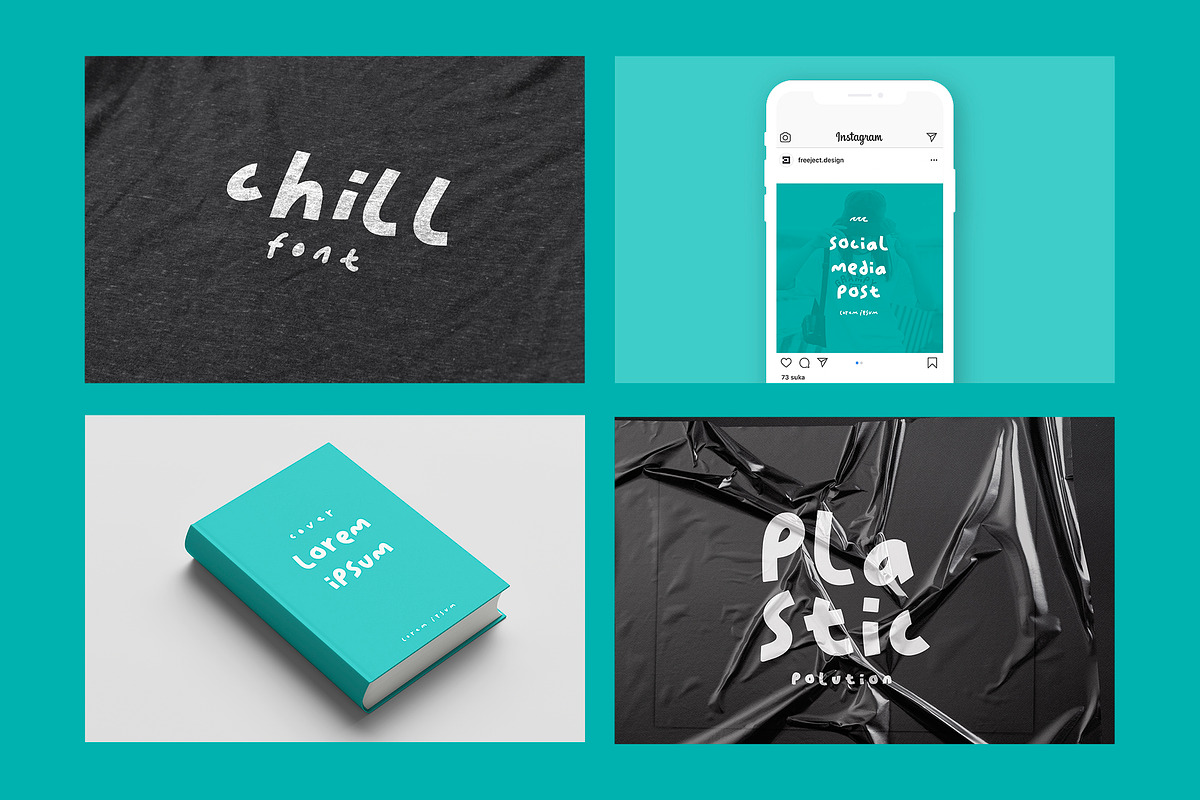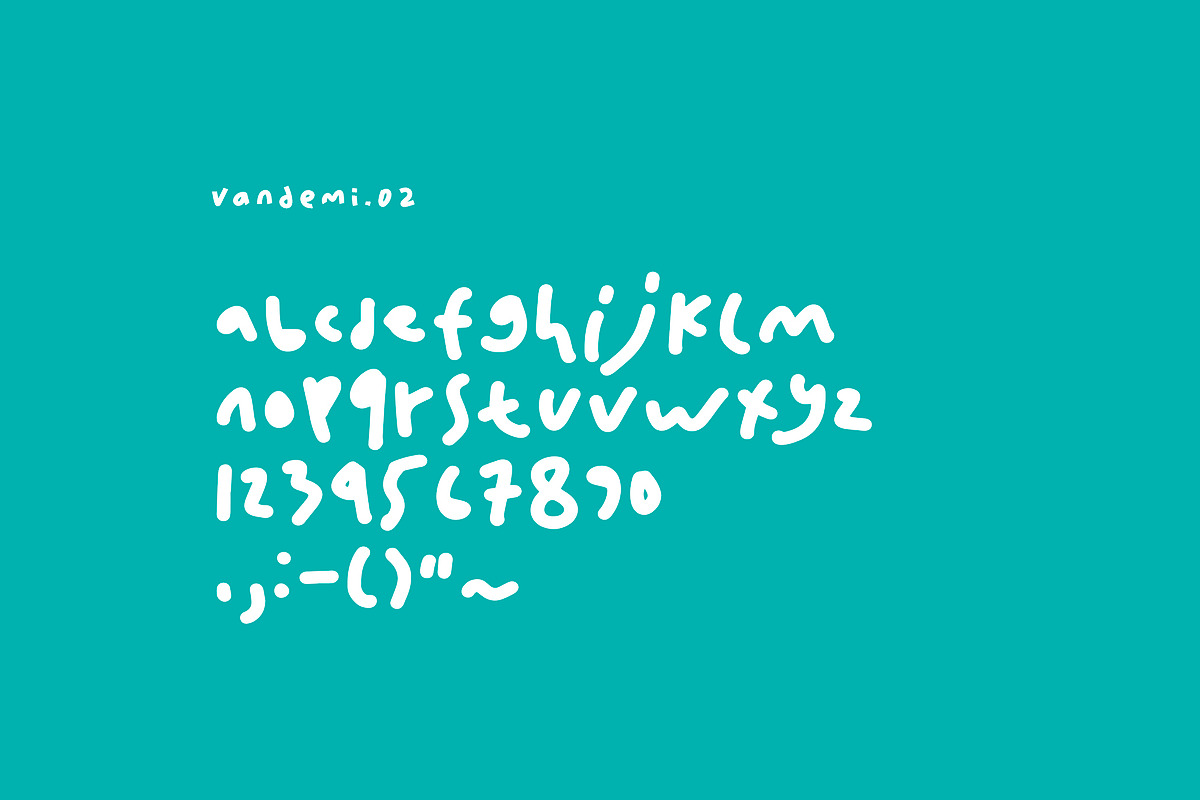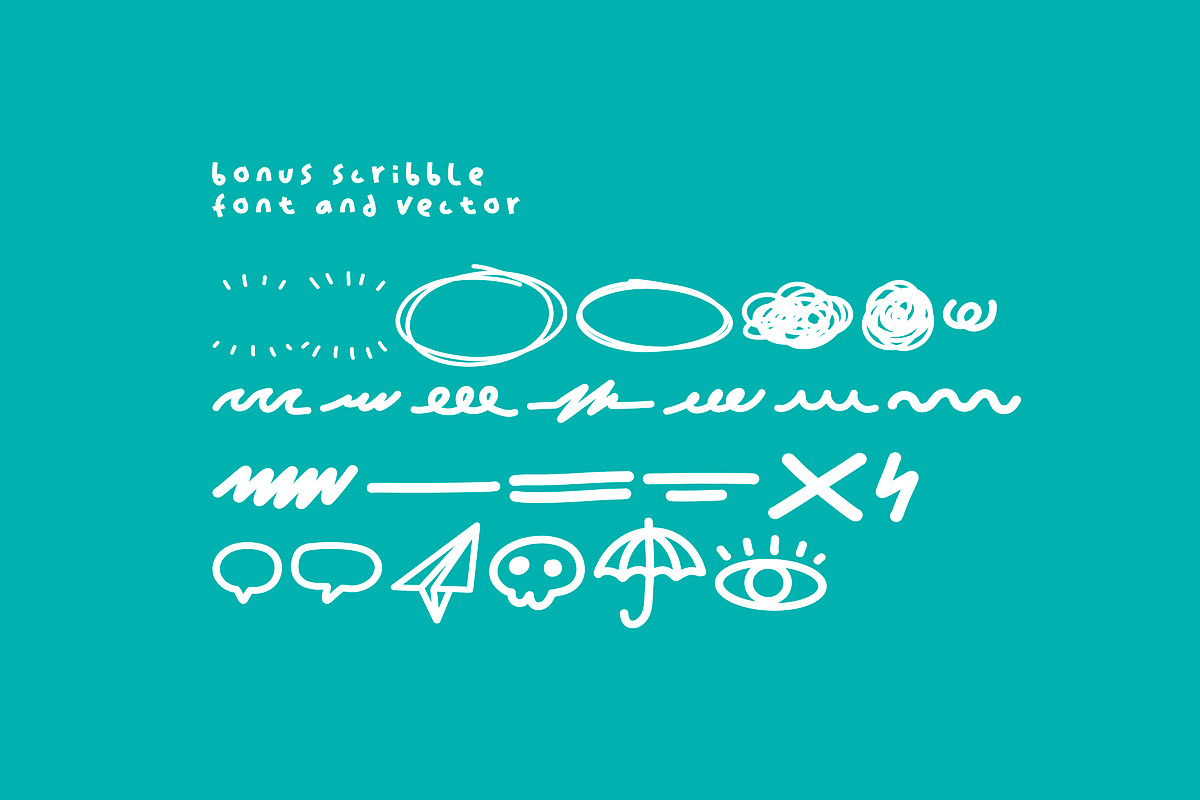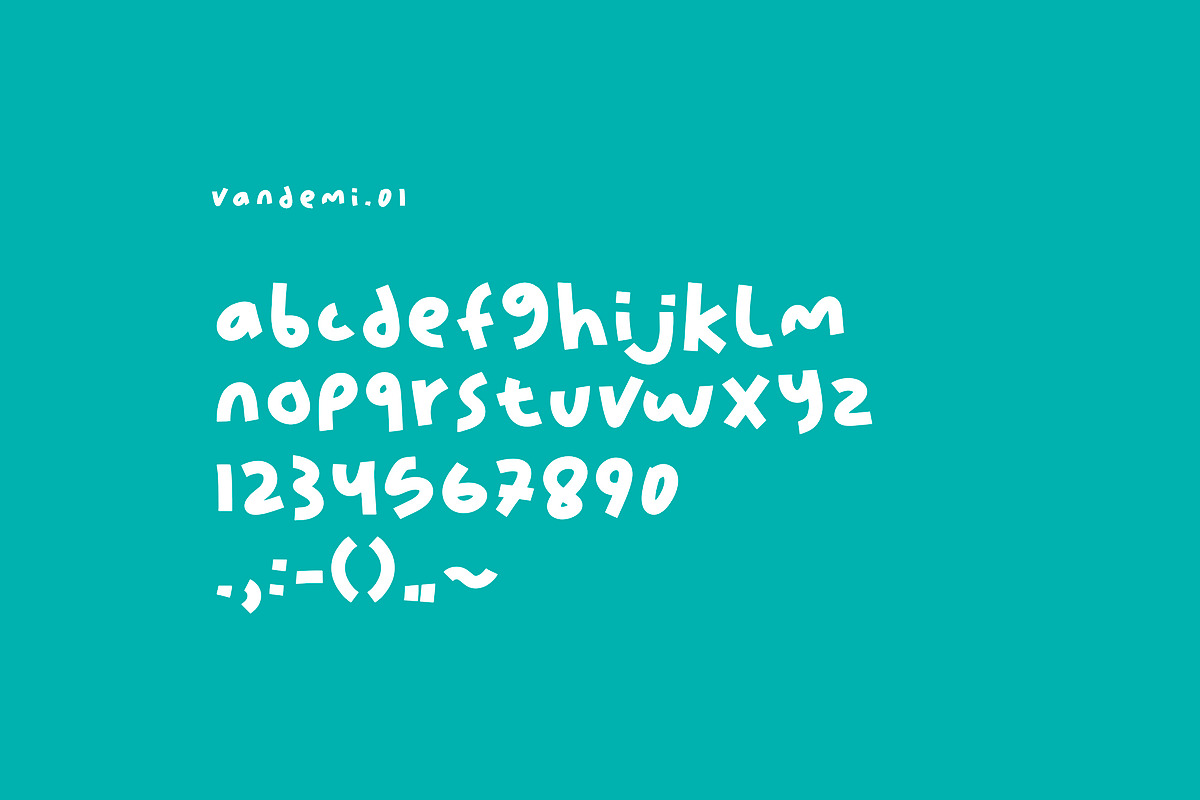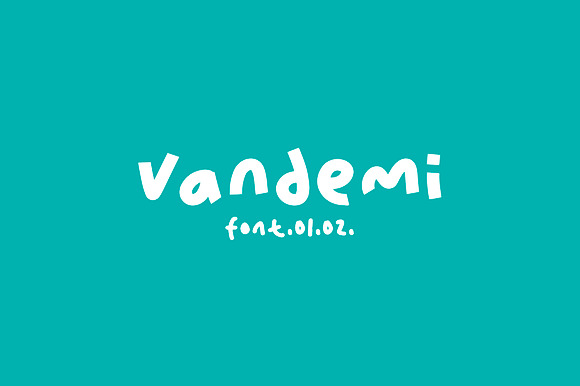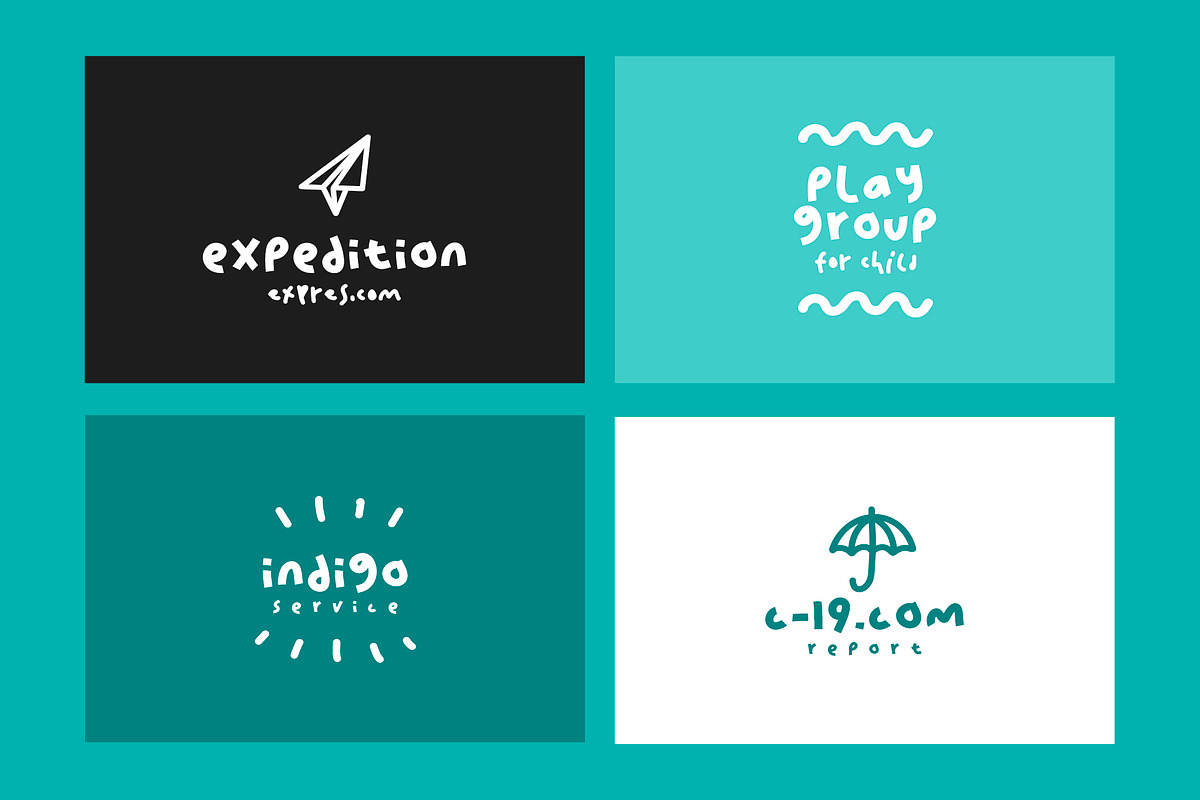
Vandemi Handwritten font
This font was created with a handwriting theme, there are 3 font styles that you can use. The first is a bold handwriting style, the second is light handwriting when you're lazy, and the third one is a hand-drawn symbol-themed font. You can combination these three fonts to produce an cool design. such as logo, T-shirt design, poster design, design for children, introvert design, etc.